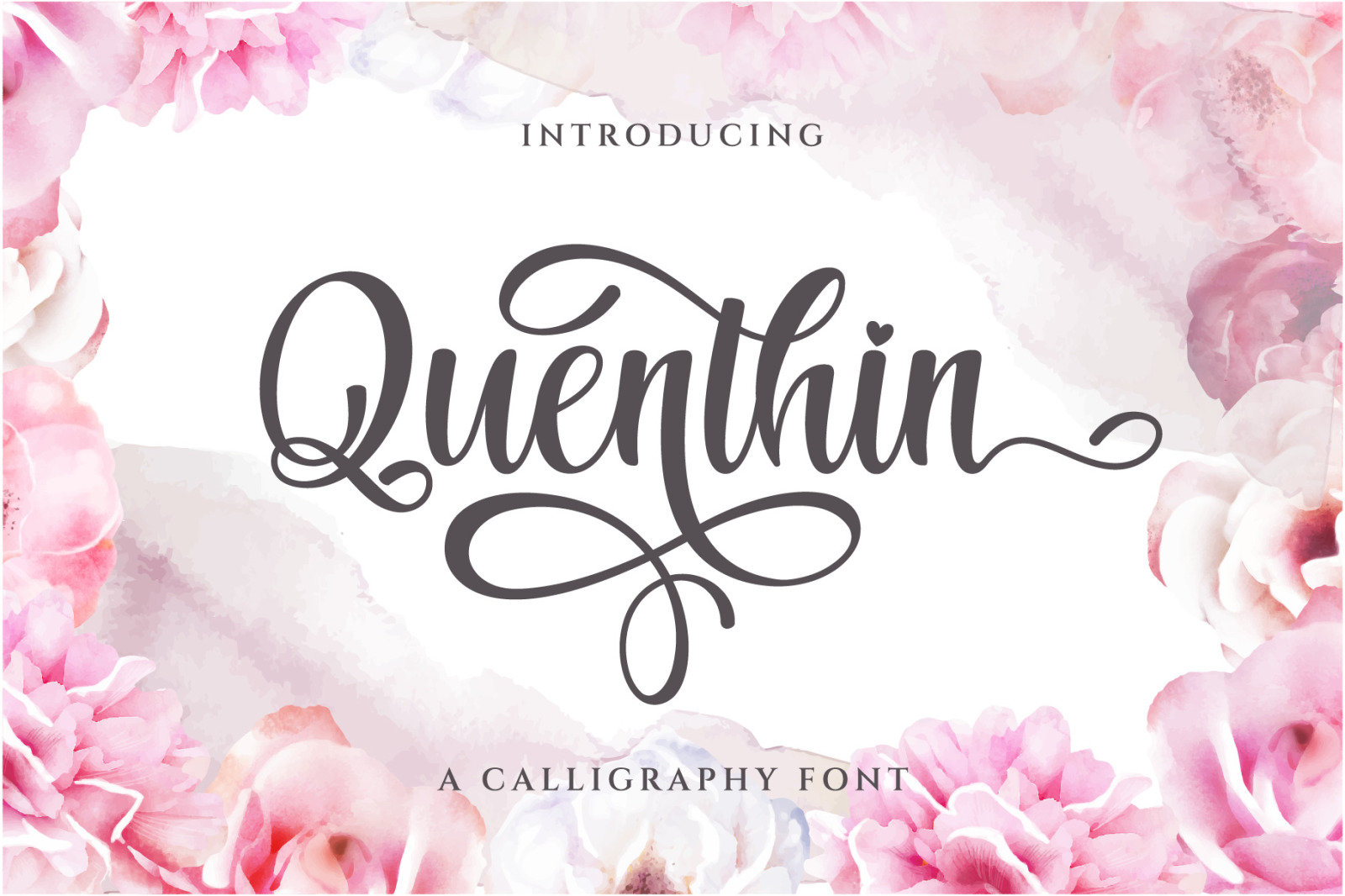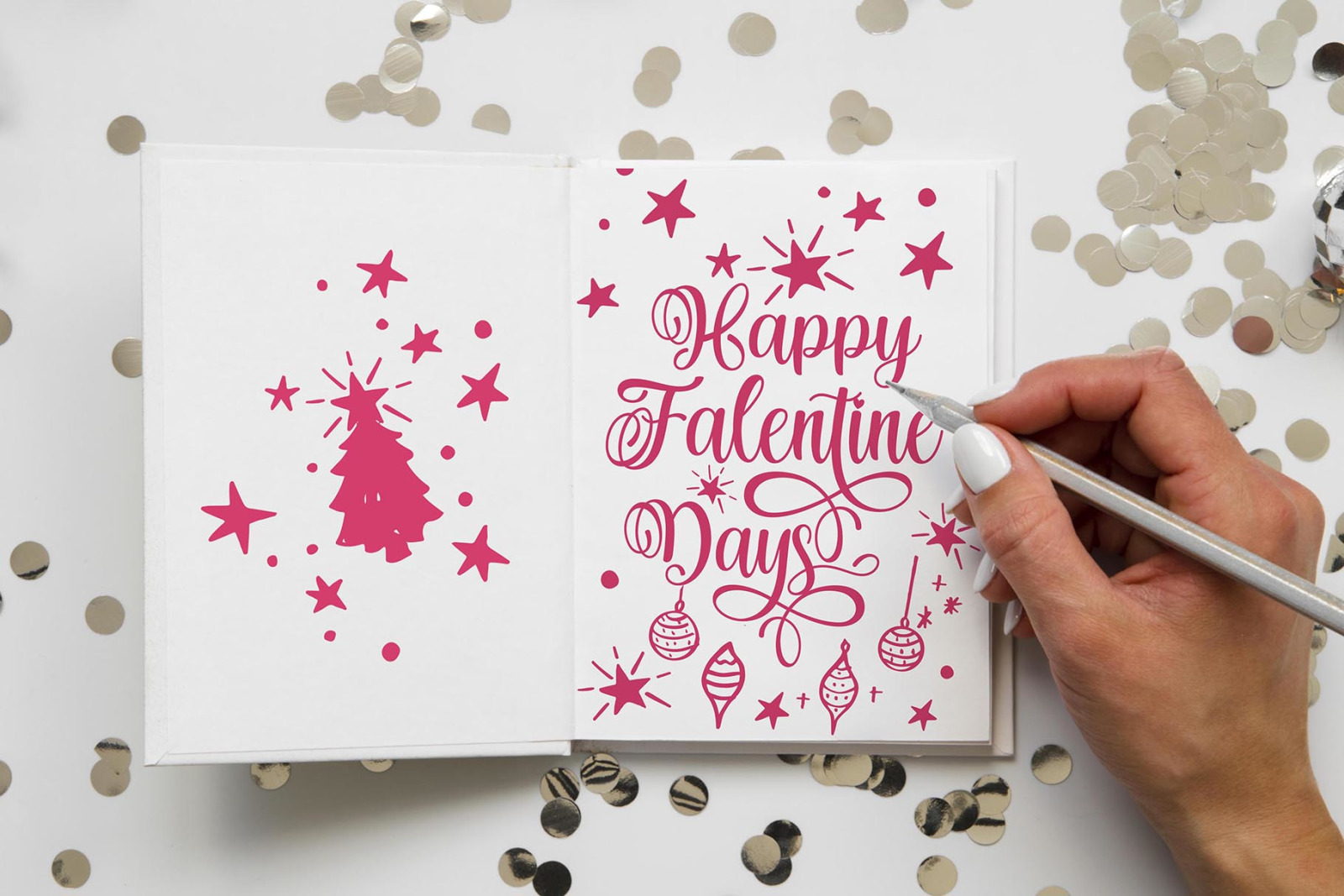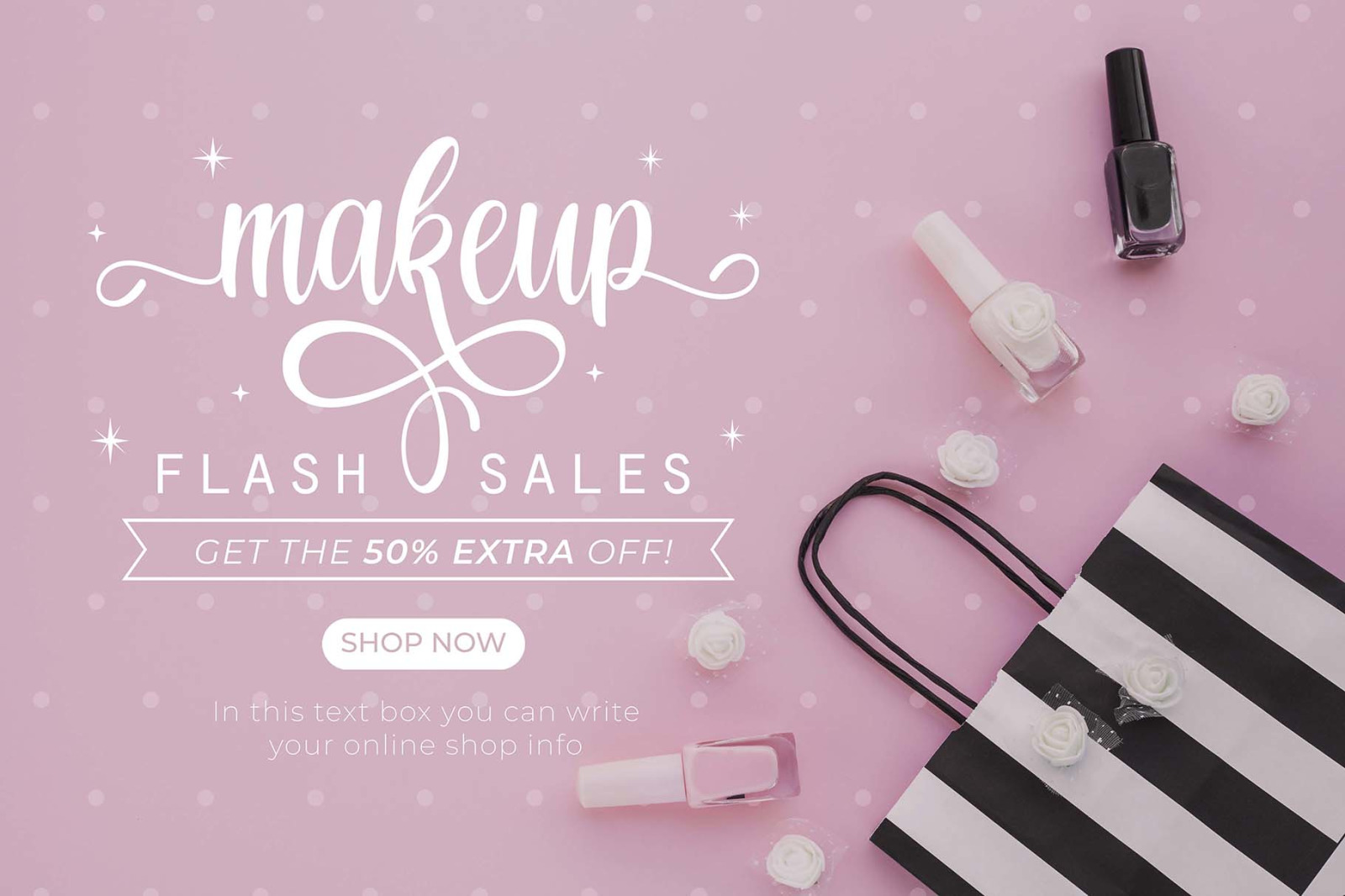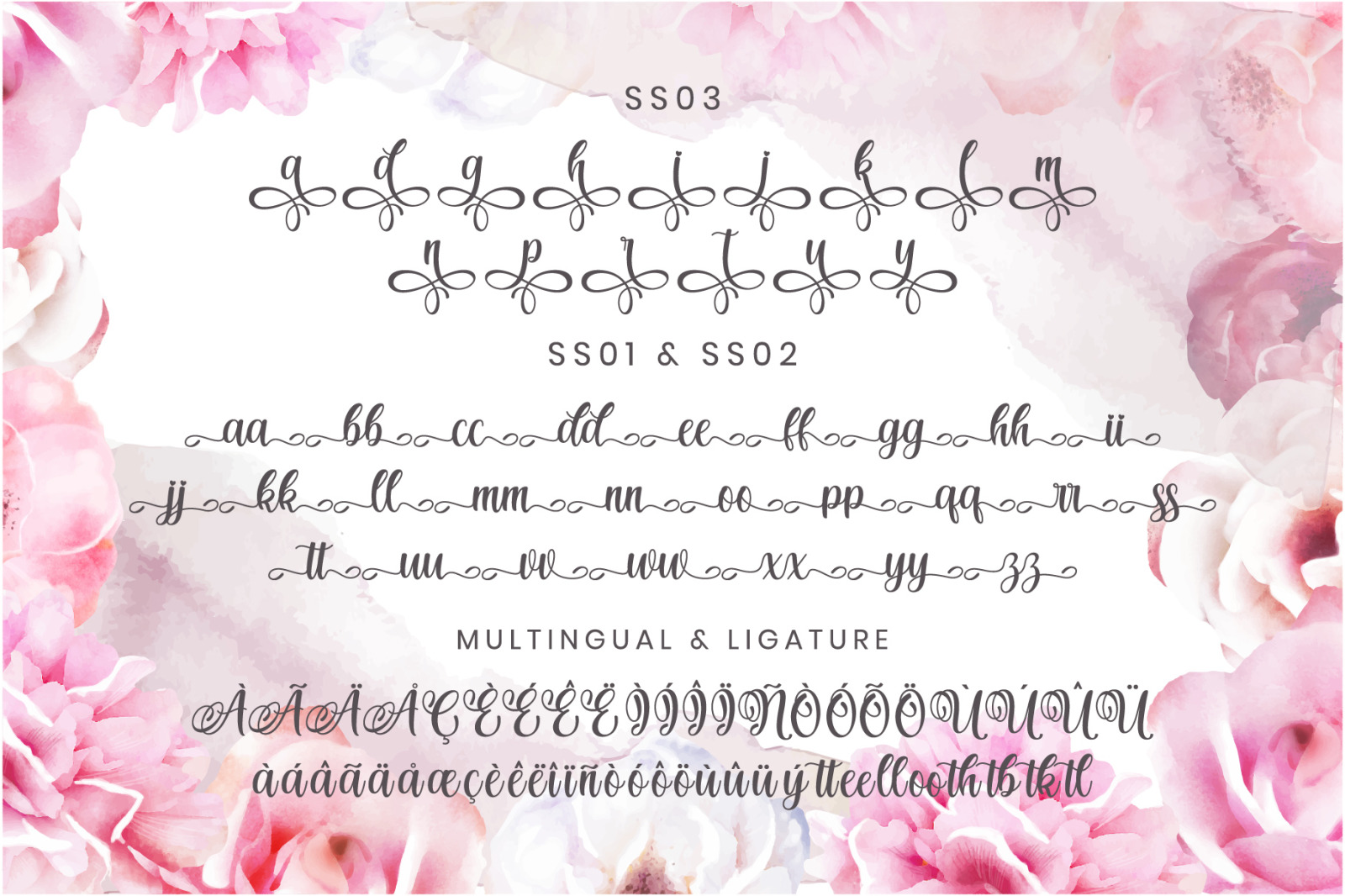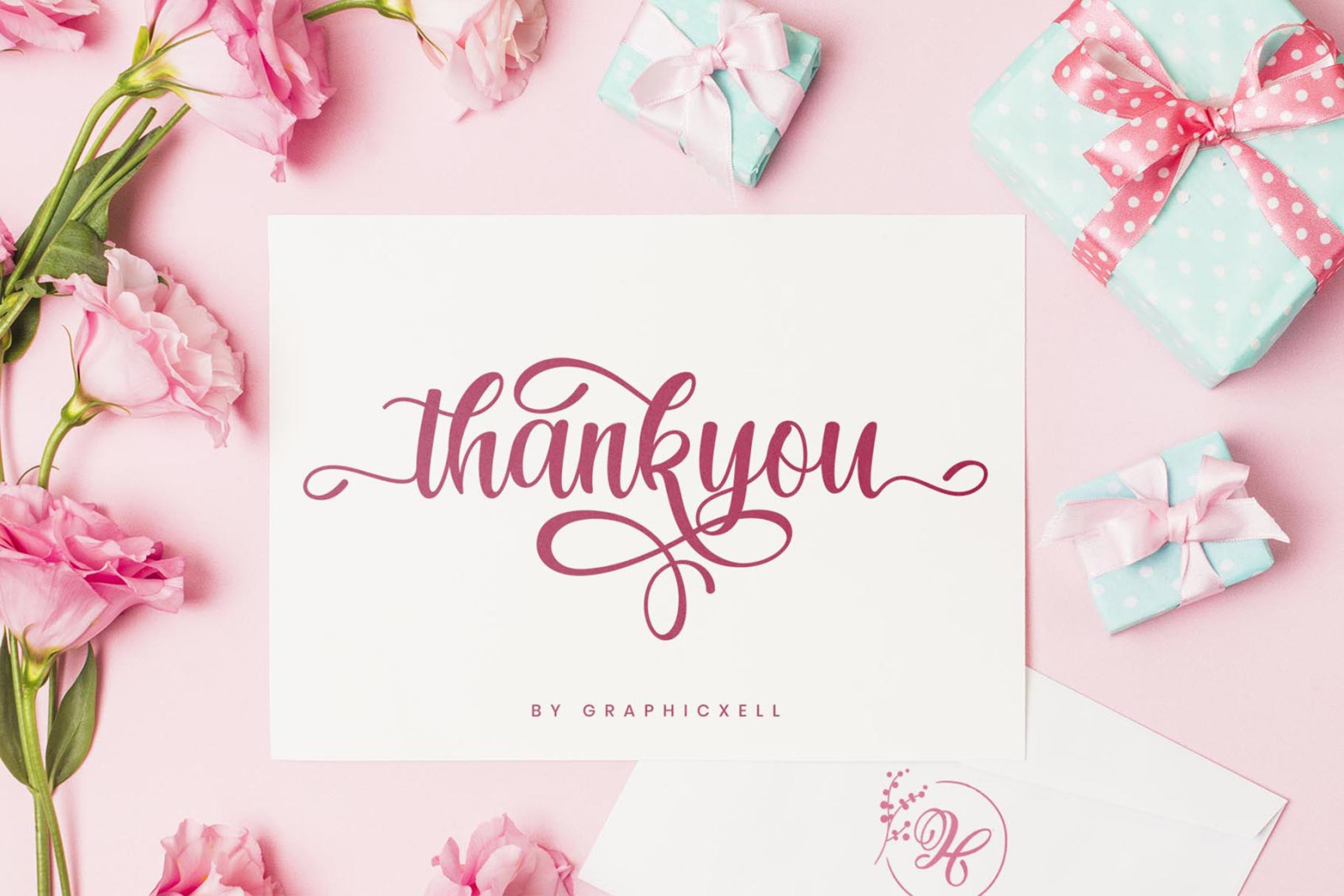
Quenthin Font
Quenthin is a modern calligraphy font.
This font can be used for fashion, salon, invitation, greeting cards, t-shirts, and you can create in many ways by using this font.
In addition to regular fonts, this font also has additional features to enhance your creation
feature:
- regular font
- ligature
- alternative
- swsh
- ss01
- Multilingual